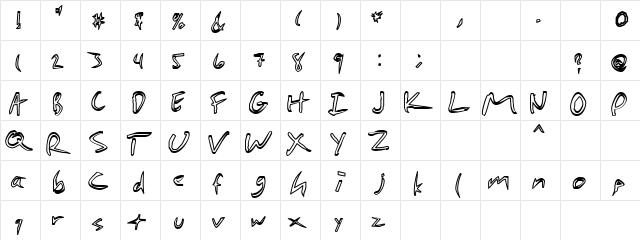
Pinoquee Regular
Design Context for Pinoquee Typeface
Pinoquee is a composed and adaptable typeface that performs quietly and consistently across a wide range of design contexts.